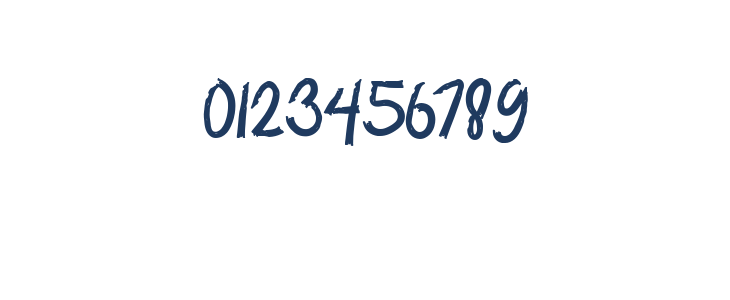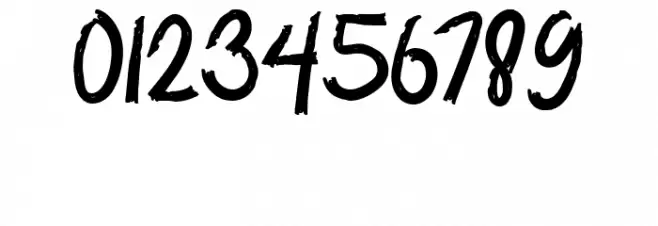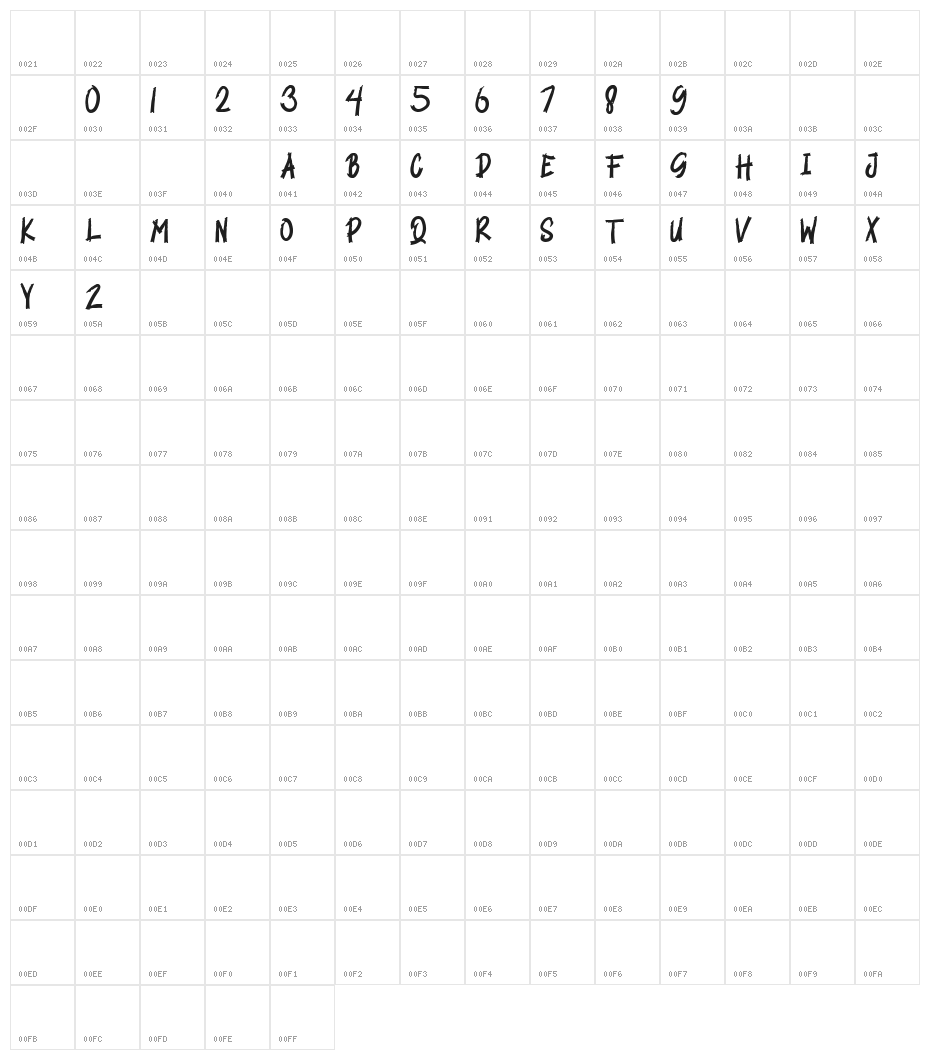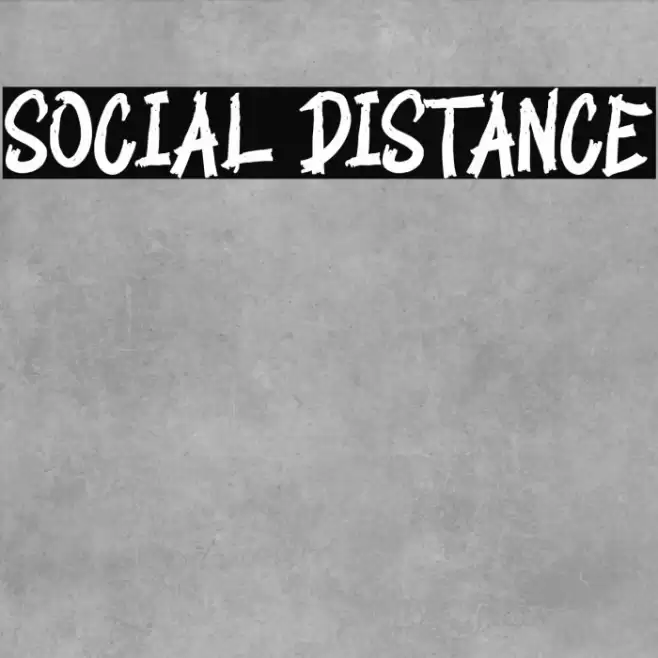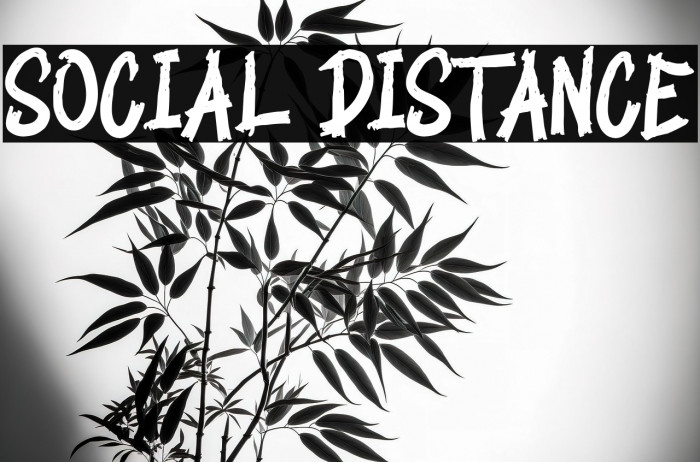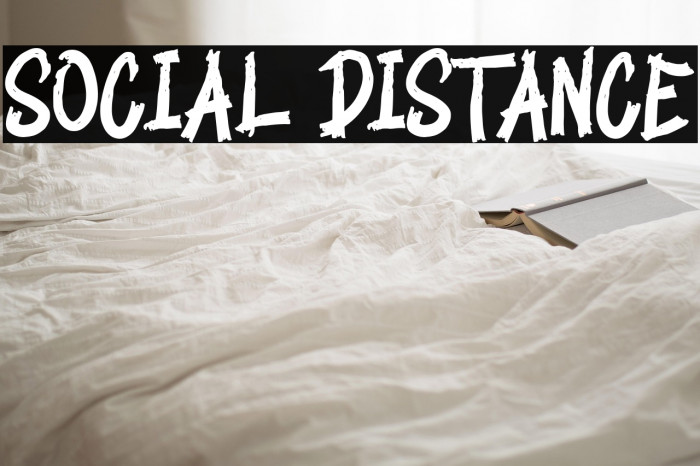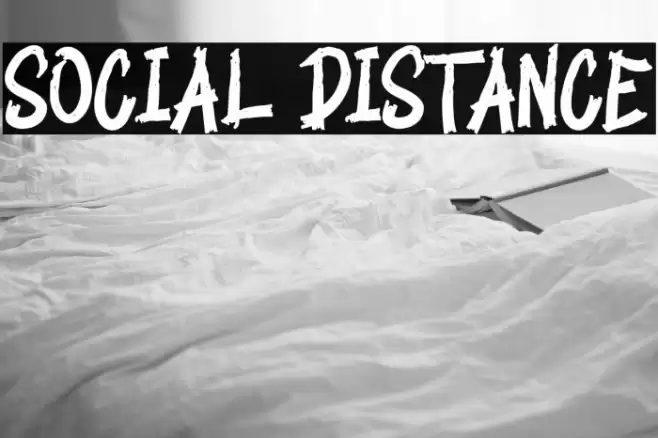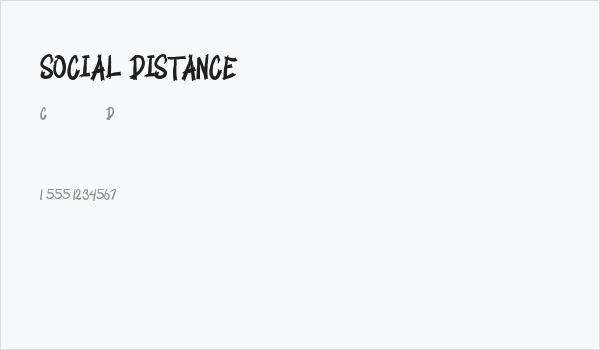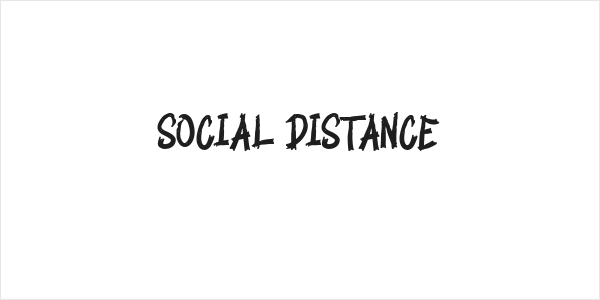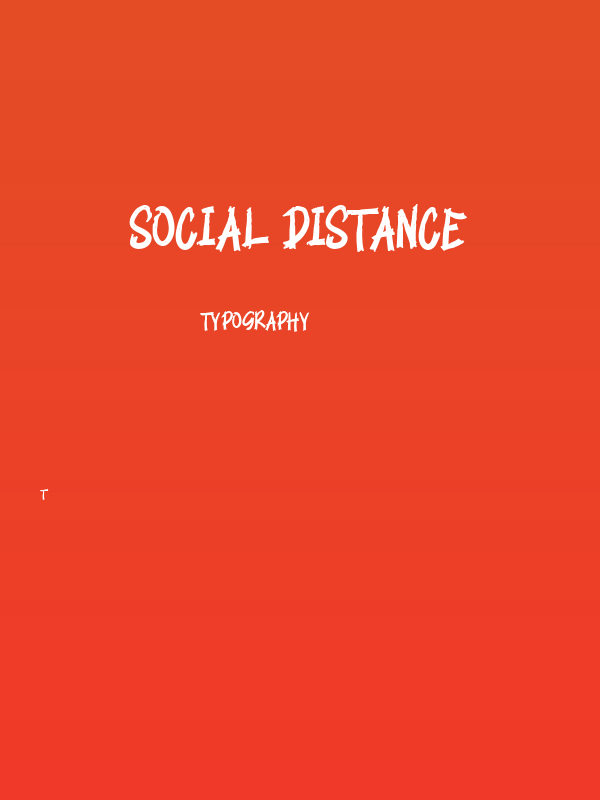
SOCIAL DISTANCE Font
SOCIAL DISTANCE Description
This font features a bold, energetic style with a hand-drawn appearance. The letters are slightly irregular, giving it a dynamic and informal feel. The strokes are thick and exhibit a brush-like texture, adding to its expressive character. The uppercase and lowercase letters maintain a consistent style, while the numerals are equally bold and distinctive. This font is designed to stand out, making it ideal for attention-grabbing headlines or creative projects. The overall look is modern and artistic, with a touch of rebellious flair.
| Proposed Projects | Ideal for posters, album covers, social media graphics, and branding projects that require a bold and artistic touch. |